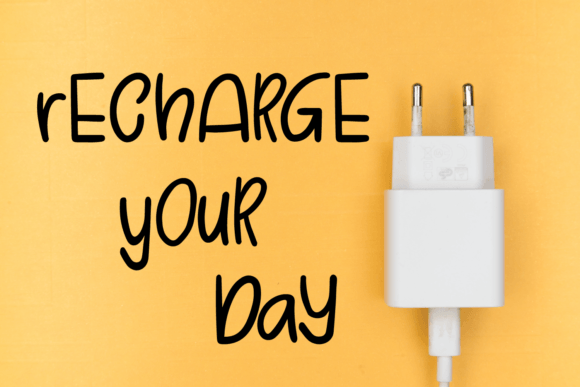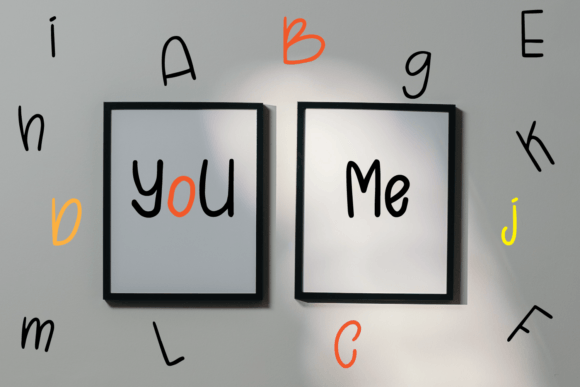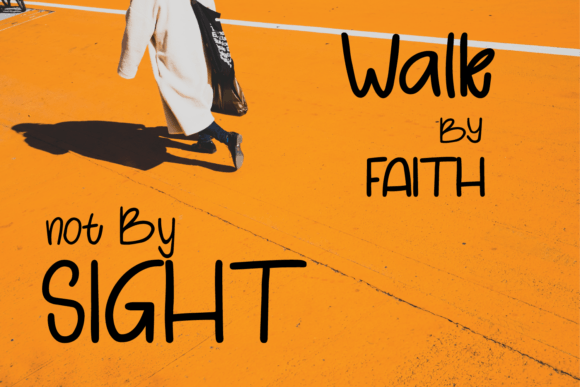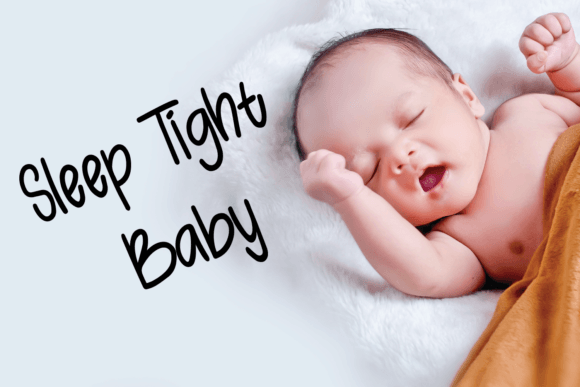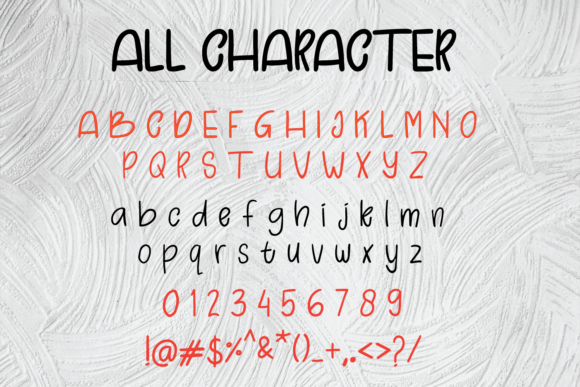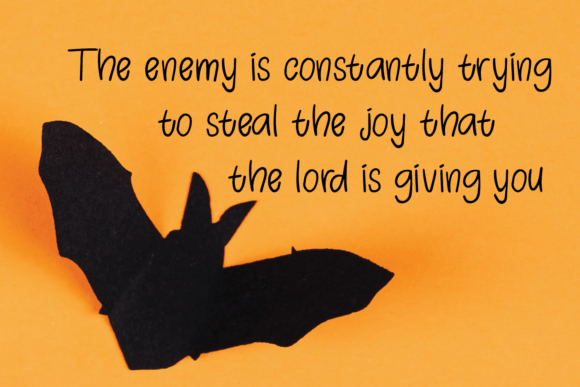
Introduction to Bat Habit Font
As a designer, have you ever been stuck on a creative project, staring at a blank canvas, waiting for the perfect spark to ignite your imagination? It’s a feeling we’ve all been there, right? For me, it was a late-night brainstorming session, surrounded by scribbled notes and half-finished ideas, when I stumbled upon the Bat Habit Font. Its charming, handwritten style immediately caught my attention, and I knew I had to learn more about this design resource.
Developed with love and care, the Bat Habit Font is a high-quality, versatile typeface perfect for various creative projects. With its transparent background, it’s an excellent choice for designers who want to add a touch of whimsy to their designs. Whether you’re working on a children’s magazine, a bold advertisement, or a custom logo, this font is sure to bring a smile to your face and a touch of magic to your design.
Key Features of Bat Habit Font
- Unique and stylish font with a transparent background, ideal for adding a touch of elegance to your designs.
- Designed with versatility in mind, Bat Habit Font is perfect for a variety of creative projects, from logos and branding to typography-based art.
Honest Review: Bat Habit Font
As a designer, I’m always on the lookout for unique and high-quality design resources to elevate my creative projects. Recently, I came across the Bat Habit Font, and I’m excited to share my honest review.
- ✨ Unique and quirky design aesthetic that’s perfect for bold and playful projects.
- ✨ High-quality font files that are crisp and clear, even at larger font sizes.
- ✨ Transparent background option makes it easy to use on a variety of design backgrounds.
- ⚠️ Limited font styles and weights, which may not be suitable for complex or multi-page designs.
- ⚠️ Some characters may not be compatible with certain operating systems or software.
Overall, I’m impressed with the Bat Habit Font’s unique design and high-quality files. While it may not be suitable for every project, it’s a great addition to any designer’s toolkit. With a free download option, it’s definitely worth checking out for your next creative project.
Use the Bat Habit Font in combination with other design resources, such as icons and graphics, to create visually appealing designs. Experiment with different font sizes, colors, and styles to add depth and interest to your projects.
The Bat Habit Font is ideal for various creative projects, including logos, social media graphics, business cards, and more. Its high-quality design and transparent background make it a great resource for designers and non-designers alike.